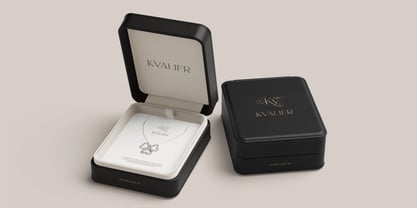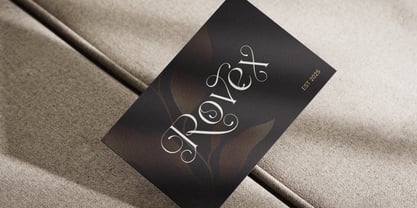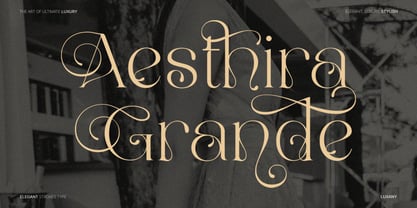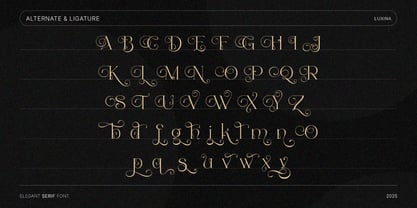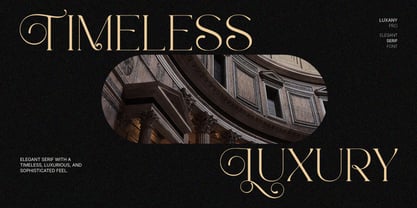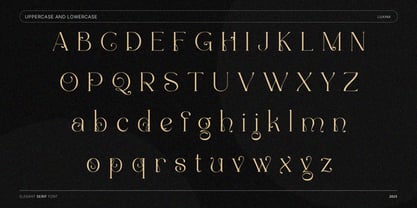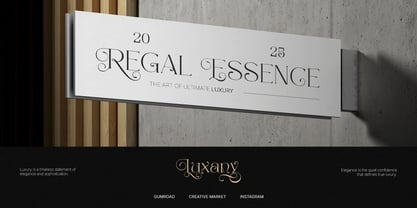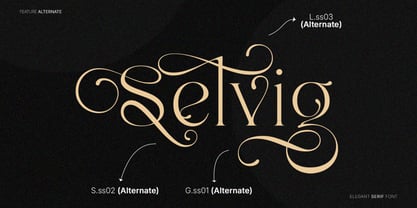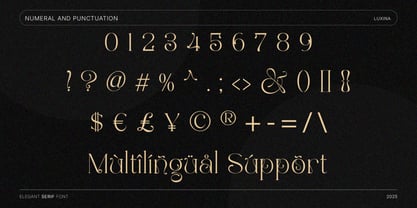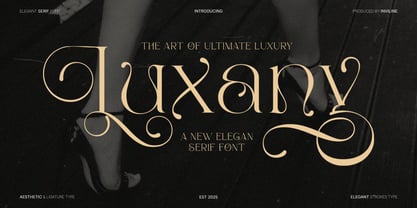
Luxany Display Pro
von Inviline
Die Schriftfamilie Luxany Display Pro wurde von Virgiawan Listanto entworfen und von Inviline veröffentlicht. Luxany Display Pro enthält 1 Stile.
Luxany is a newly introduced elegant serif font. Its design emphasizes aesthetics and ligatures, featuring refined and elegant strokes. This font is suitable for design needs requiring a luxurious and sophisticated feel, such as premium branding, wedding invitations, or editorial design.
Designer: Virgiawan Listanto
Herausgeber: Inviline
Foundry: Inviline
Eigentümer des Designs: Inviline